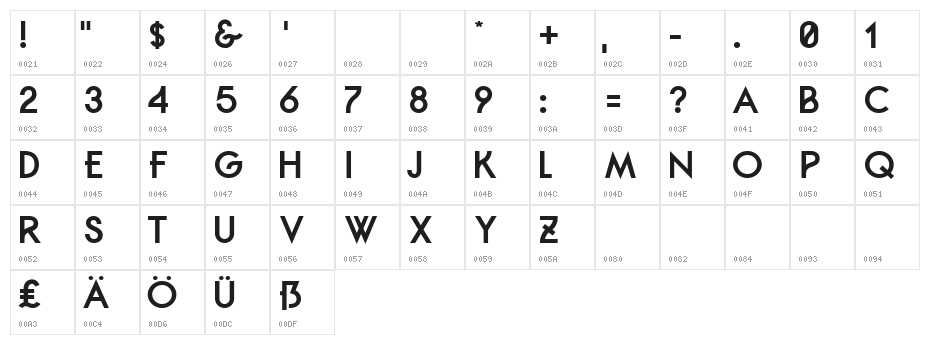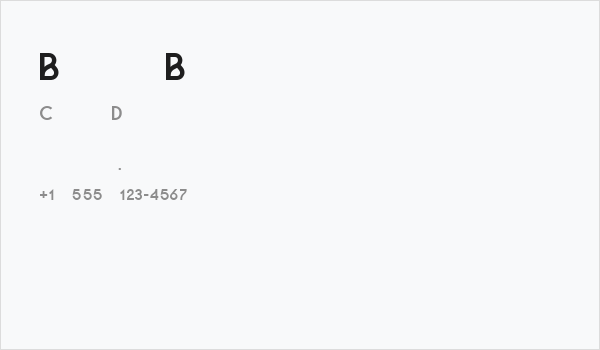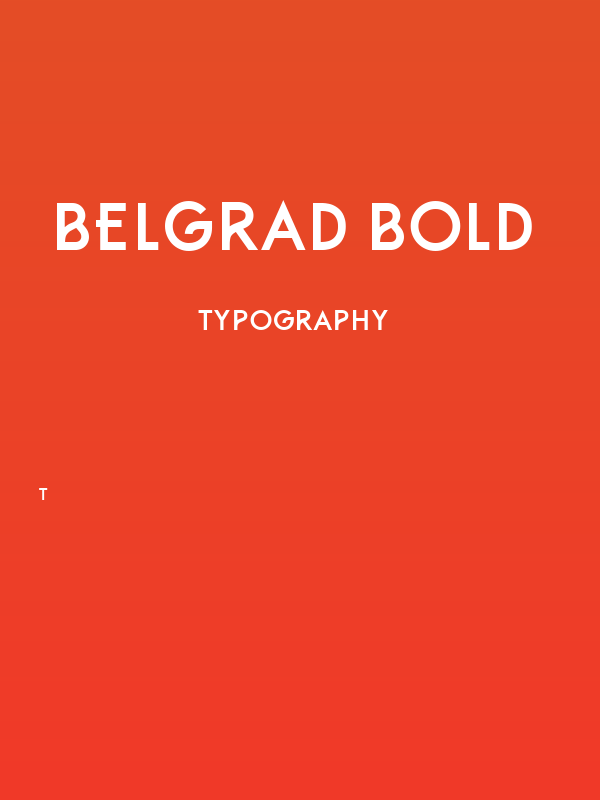
Belgrad Bold Font
Belgrad Bold Description
This font features a bold and geometric design with clean lines and a modern aesthetic. The uppercase letters are uniform in height, with sharp angles and a strong presence. The numerals are equally bold, maintaining the geometric style with rounded edges that complement the overall design. The special characters are crafted to match the boldness and clarity of the alphabet, ensuring consistency across all glyphs. This font is highly legible, making it suitable for various applications where clarity and impact are essential.
| Proposed Projects | Ideal for branding, headlines, posters, and any design requiring a strong visual impact. |